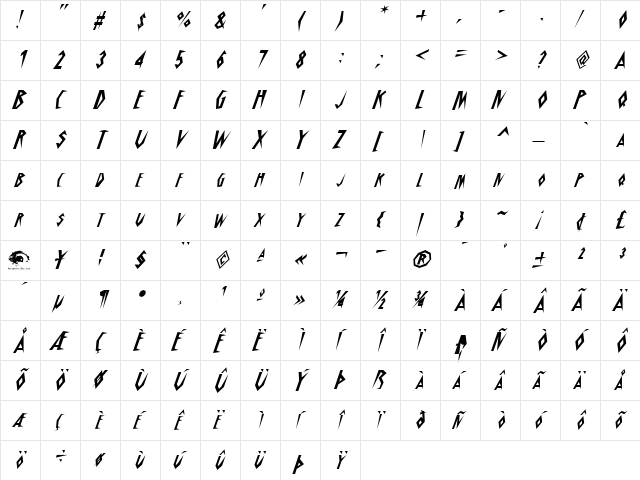
Schrill AOE Oblique
Design Context for Schrill AOE Typeface
Schrill AOE is a composed and adaptable typeface that performs quietly and consistently across a wide range of design contexts. The dynamic lean of this cut emphasises speed and emphasis in any layout.
Pro Tip: Use Schrill AOE for emphasis, pull quotes, and subheadings where its slanted energy can add rhythm to the layout.